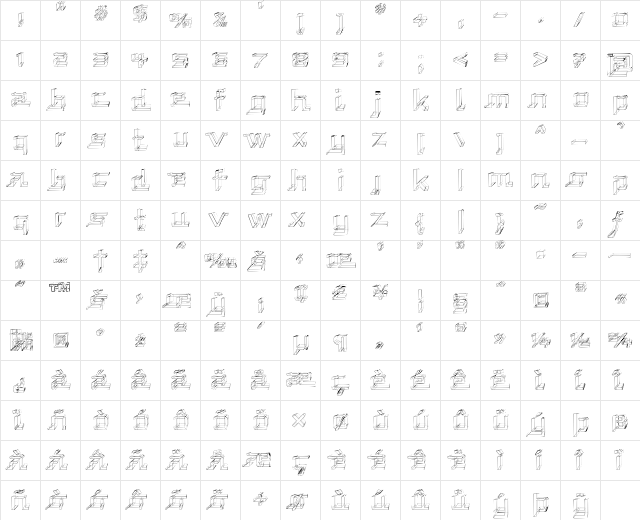
Republika - Sketch Regular
Design Context for Republika - Sketch Typeface
Republika - Sketch is a composed and adaptable typeface that performs quietly and consistently across a wide range of design contexts.